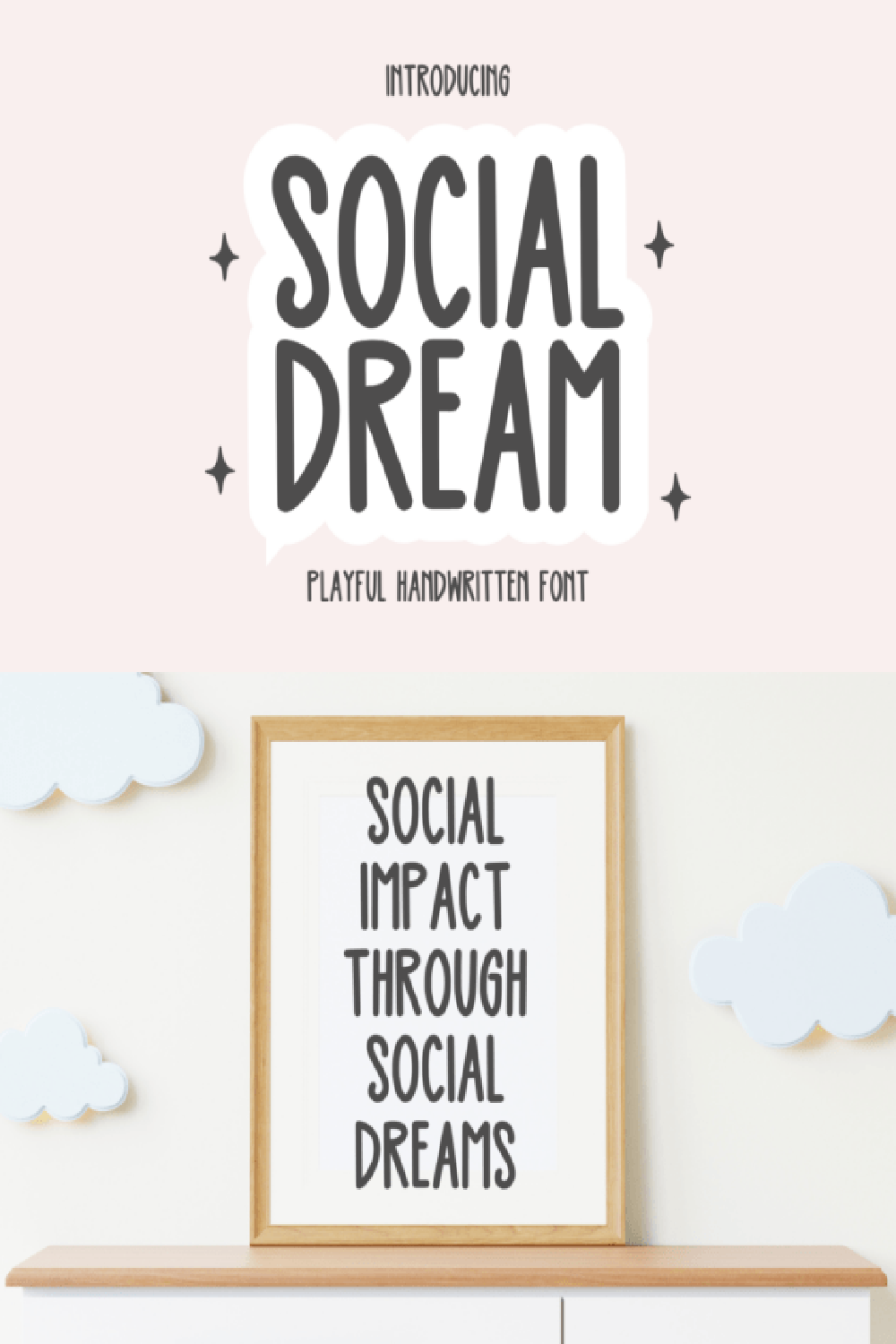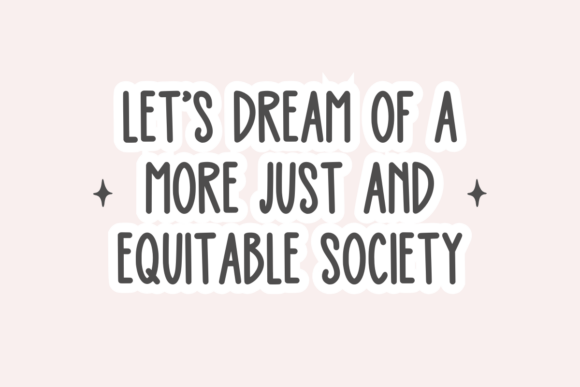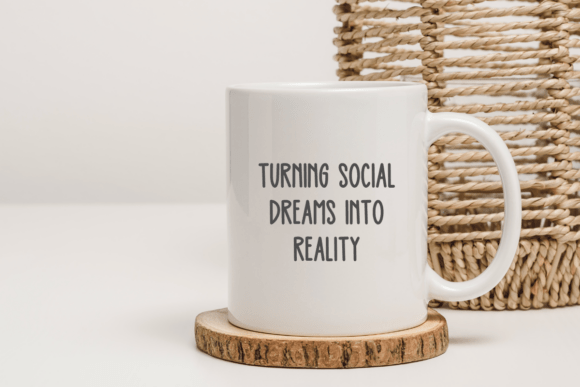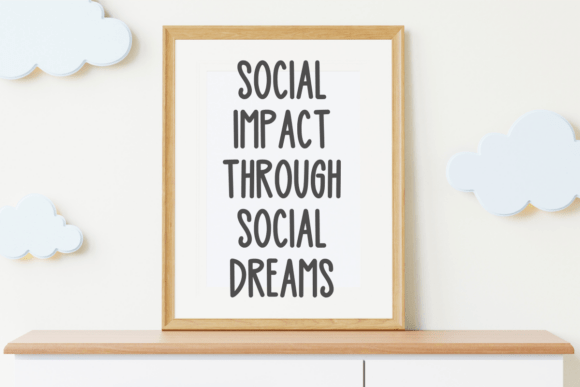
Social Dream Font: A Cute Handwritten Font for Cricut & DIY Projects
About the Social Dream Font
Crafted with precision, the Social Dream Font is ready to bring your ideas to life. Social Dream is a fun and whimsical font that’s perfect for crafts, planners, KDP, stickers, greeting cards, and more. With its cute and friendly style, it works great for Cricut, sublimation, and creative DIY projects. Ideal for crafters, designers, and makers!
Social Dream Font Usage Examples